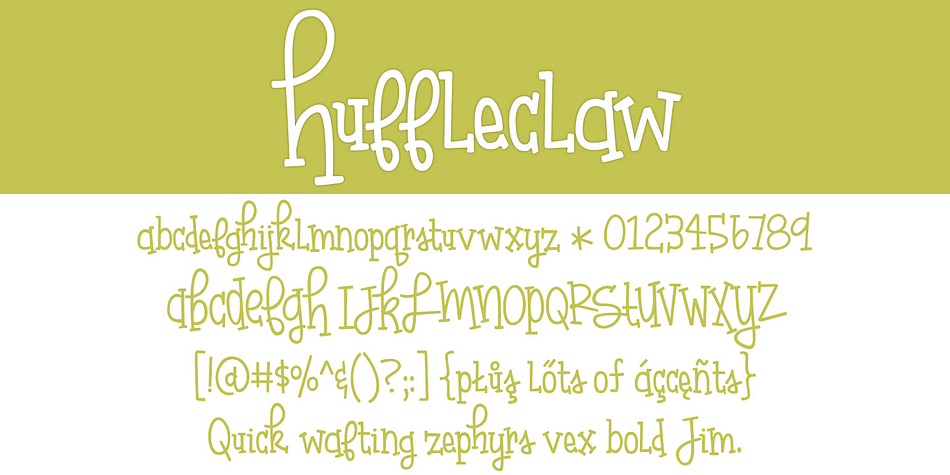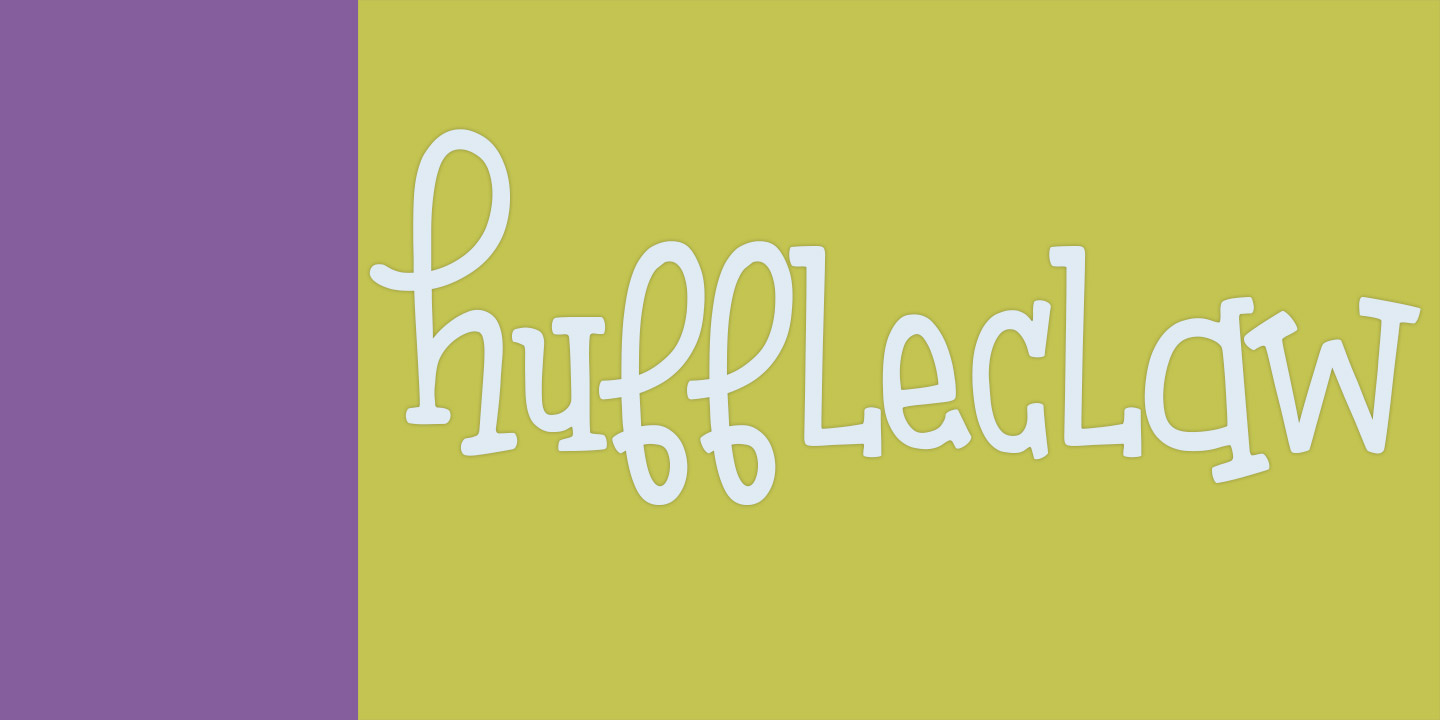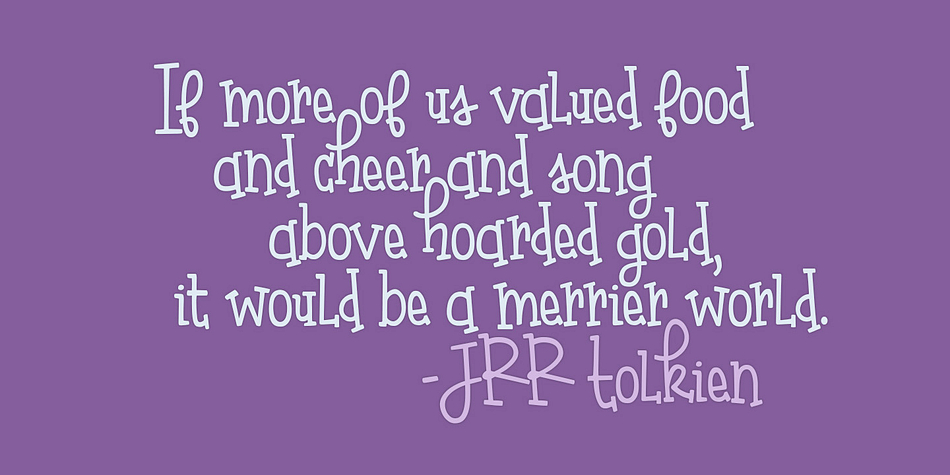
Huffleclaw is a hand drawn font published by Brittney Murphy Design.
Huffleclaw is a bold, playful font. Lots of fun!
| Foundry | Brittney Murphy Design |
| Style | Hand Drawn |